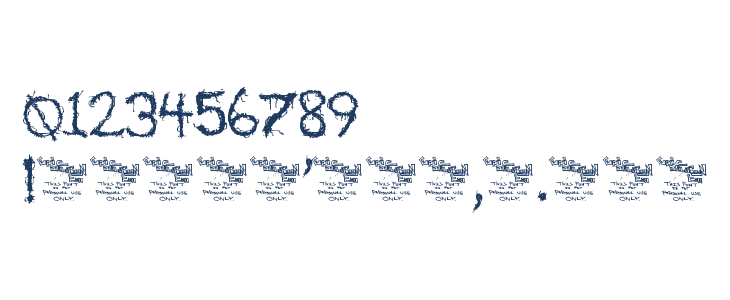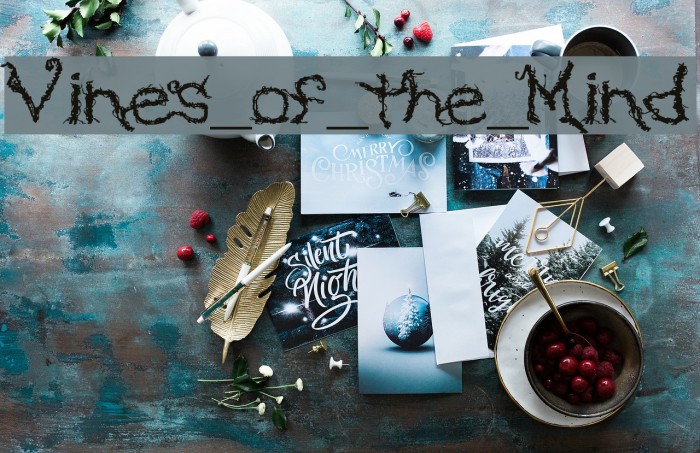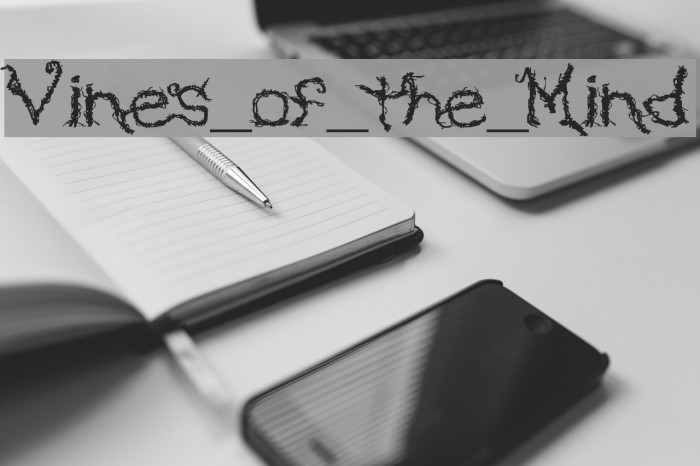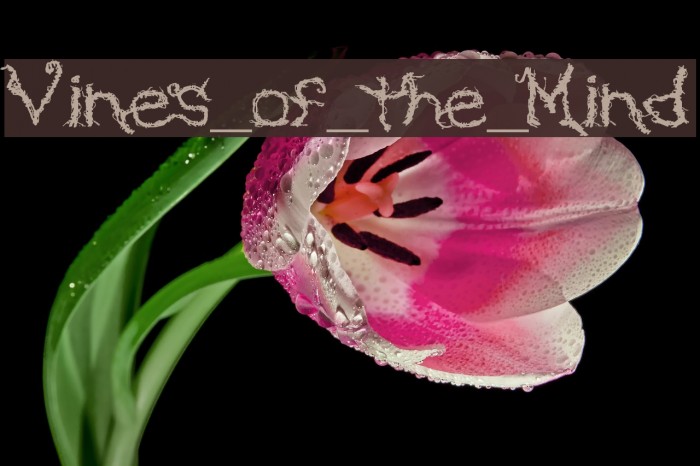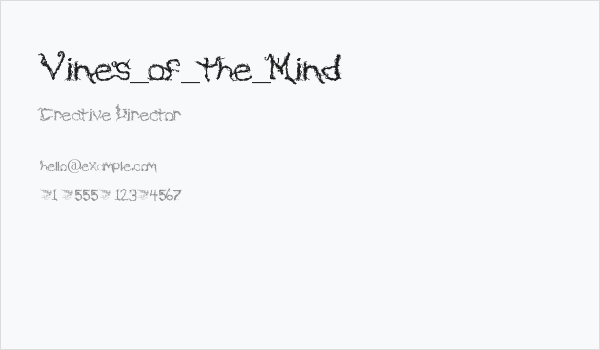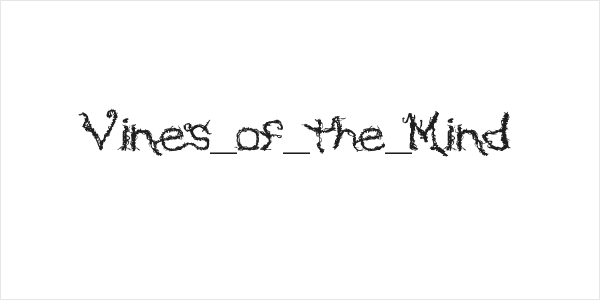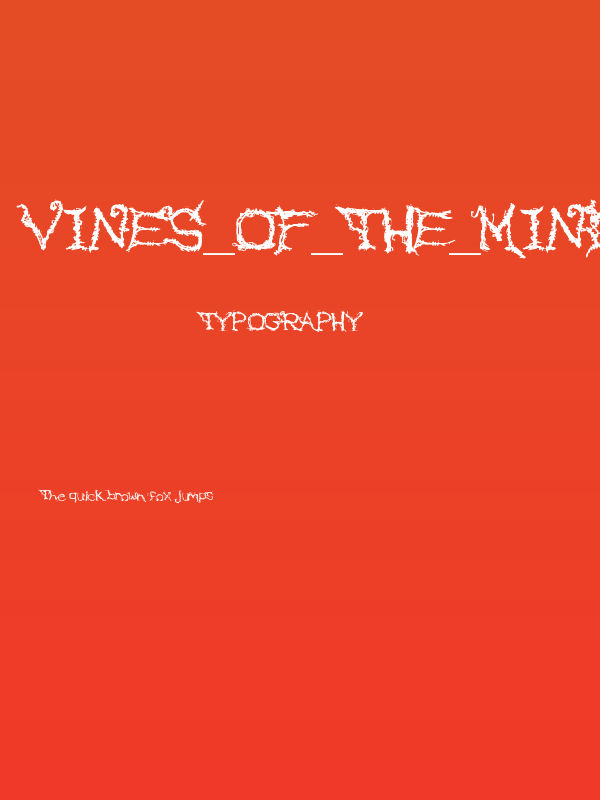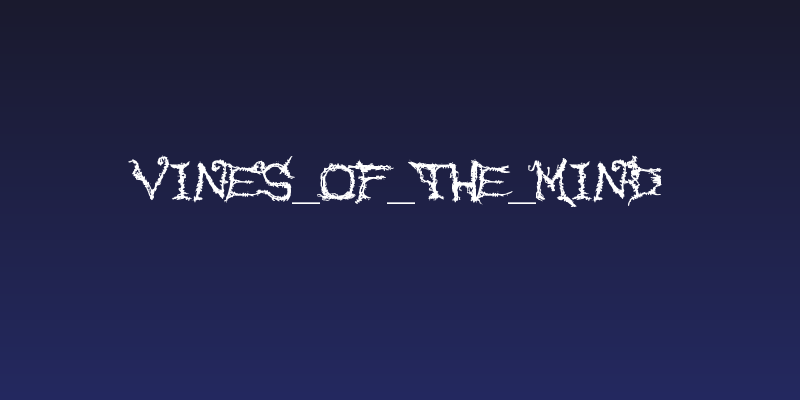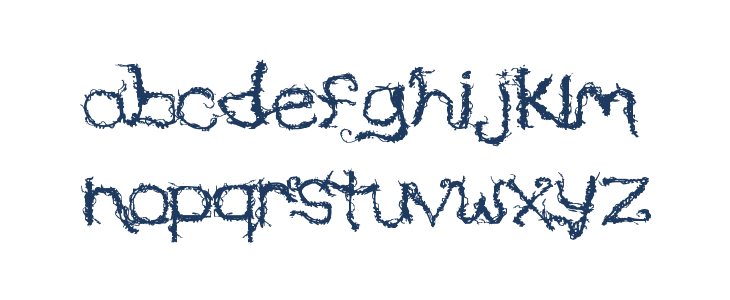
Vines_of_the_Mind Font
Vines_of_the_Mind Description
This font features an intricate design that resembles tangled vines or thorny branches, creating a wild and organic appearance. The letters are highly decorative, with each character appearing as if it is woven from natural elements. The strokes are uneven and jagged, giving the font a chaotic yet artistic feel. This style is reminiscent of nature's untamed beauty, making it ideal for projects that require a touch of wilderness or fantasy. The font's unique structure makes it stand out, but it may not be suitable for small text due to its complexity.
| Proposed Projects | Ideal for fantasy-themed designs, book covers, posters, and artistic projects that require a natural or mystical touch. |